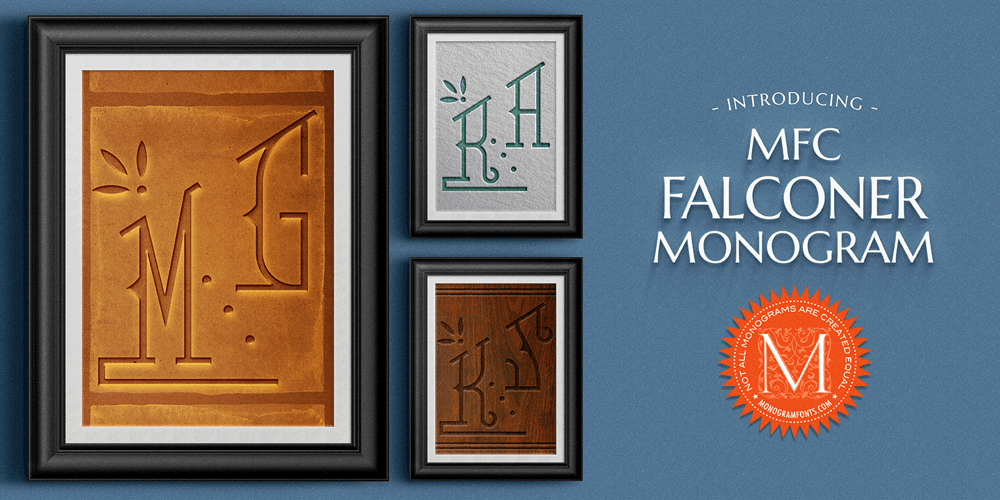
MFC Falconer Monogram Font Family was designed by Jim Lyles, Brian J. Bonislawsky and published by Monogram Fonts Co.. MFC Falconer Monogram contains 4 styles and family package options. The inspiration source for MFC Falconer Monogram is an unusual hand-drawn design from a vintage embroidery publication which relies on rigid geometric letterforms to create an upward stepping framework. This monogram which evokes visions of it embossed or printed on antique baking tins was originally intended to adorn handkerchiefs, but the possibilities of its use are up to your imagination. This is one of many monogram designs from the early 1900’s which fall into a two letter format that is either adorned or interwoven decorative elements. Download and view the MFC Falconer Guidebook if you would like to learn a little more. MFC Falconer Monogram comes complete with Pro format fonts. You will require with programs that can take advantage of OpenType features contained within the Pro fonts.